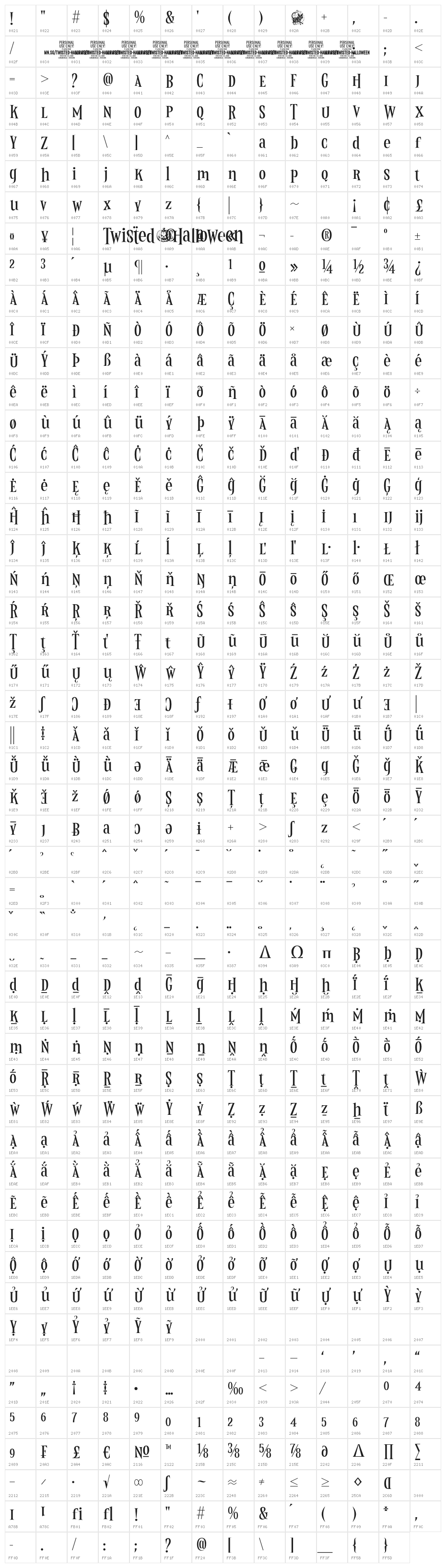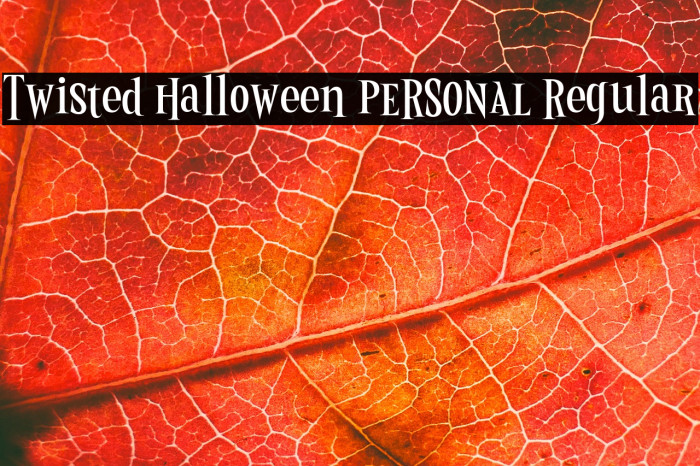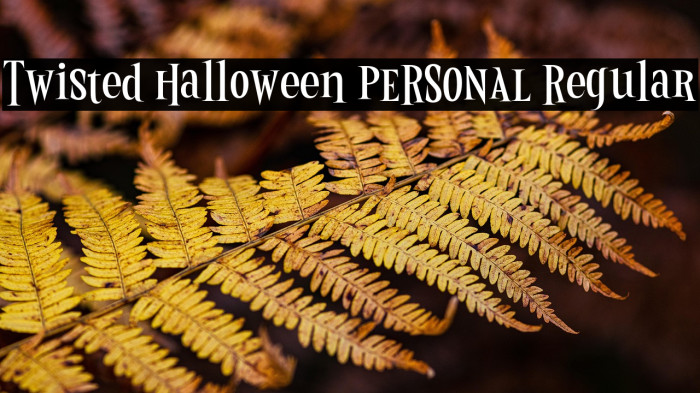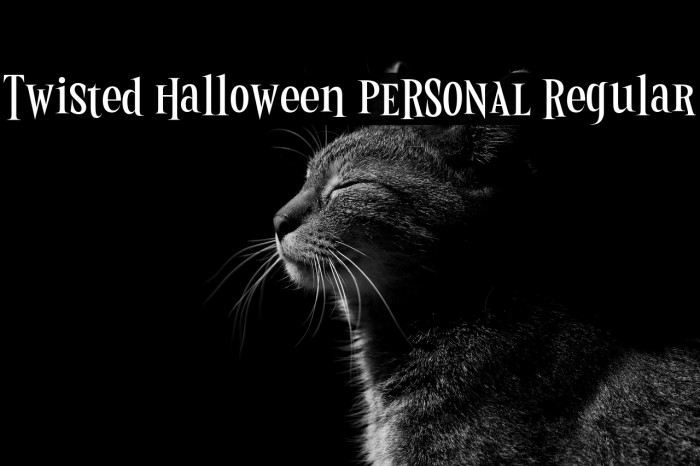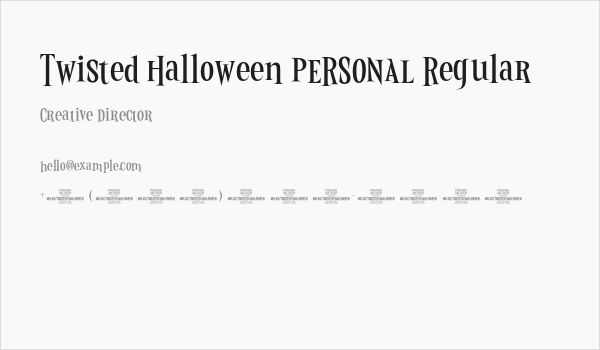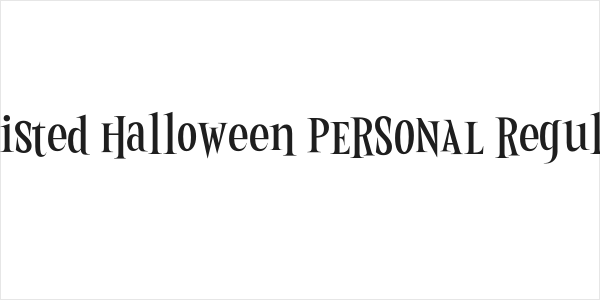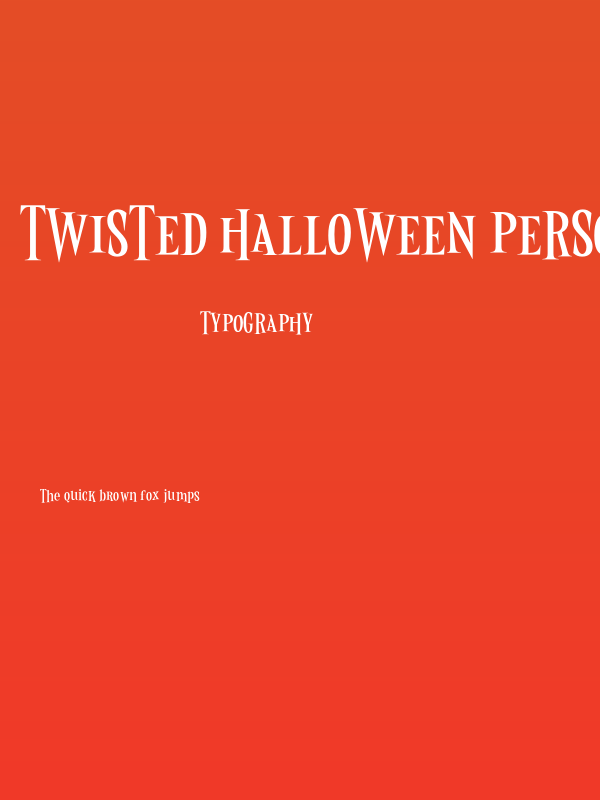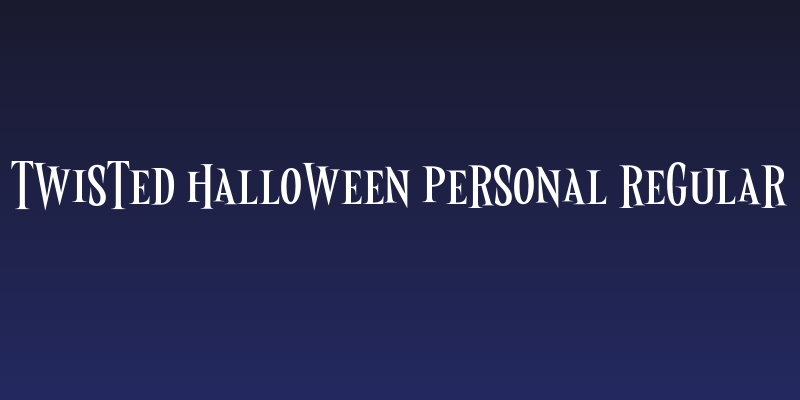
Twisted Halloween PERSONAL Regular Font
Twisted Halloween PERSONAL Regular Description
This font features a whimsical and slightly eerie design, perfect for themes that require a touch of the supernatural or mysterious. The letters have a unique twist, with elongated and curved strokes that give them a playful yet slightly sinister appearance. The uppercase characters are bold and commanding, while the lowercase letters maintain a consistent style with a slightly more delicate touch. The special characters, including punctuation and symbols, are designed to complement the overall spooky aesthetic, making it ideal for Halloween-themed projects or anything requiring a gothic or fantasy vibe.